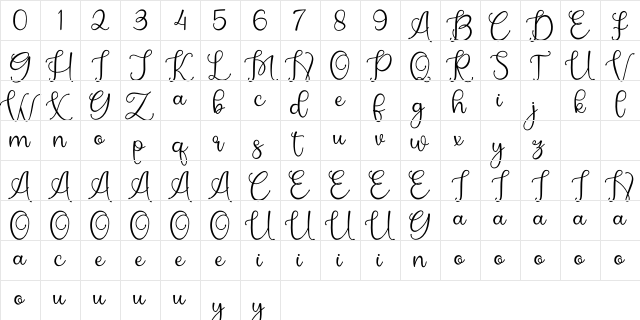
Sabanita is a composed and adaptable typeface that performs quietly and consistently across a wide range of design contexts.
Pro Tip: Use Sabanita in both headline and body roles to test its range before committing to a single application.